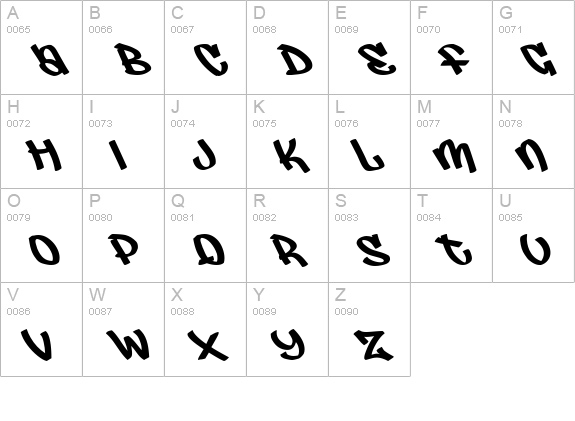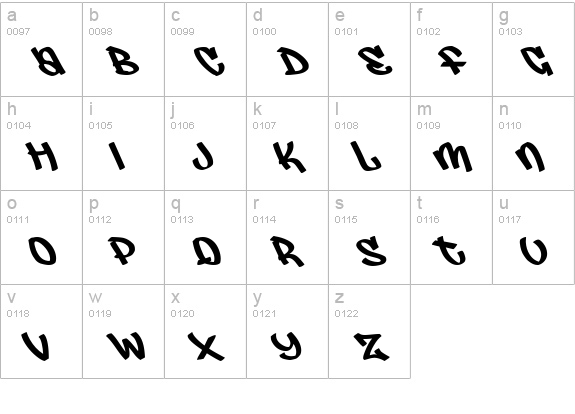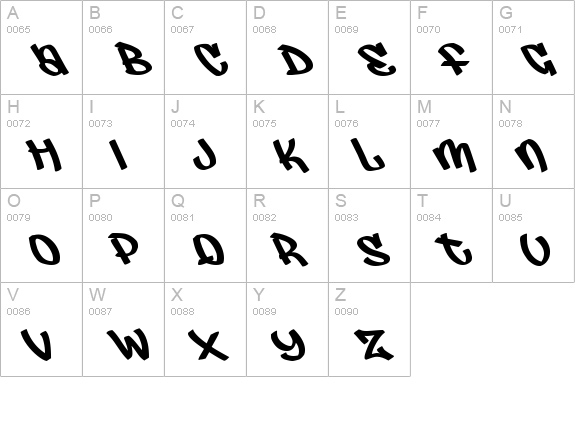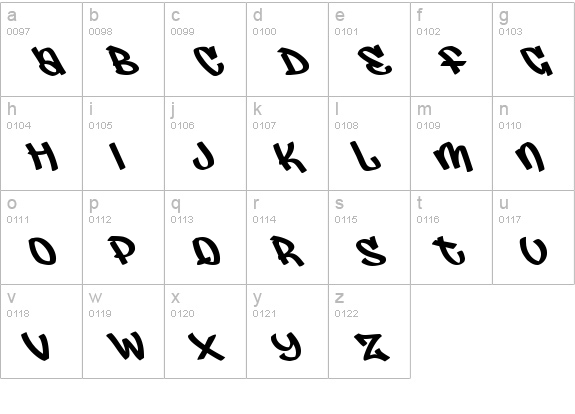
Judas Font Details
Introducing Judas font, a stunning and versatile typeface that exudes elegance and sophistication. With its sleek lines and modern aesthetic, Judas is perfect for a wide range of design projects, from branding to editorial design. This versatile font is sure to make your creations stand out and leave a lasting impression. What's more, Judas font is available for free download at FontsMarket.com. So, whether you're a seasoned designer looking to add a fresh new font to your collection or a beginner in need of a stylish typeface for your next project, Judas font has got you covered. Don't miss out on this amazing opportunity to elevate your designs with the sleek and stylish Judas font - download it for free today!